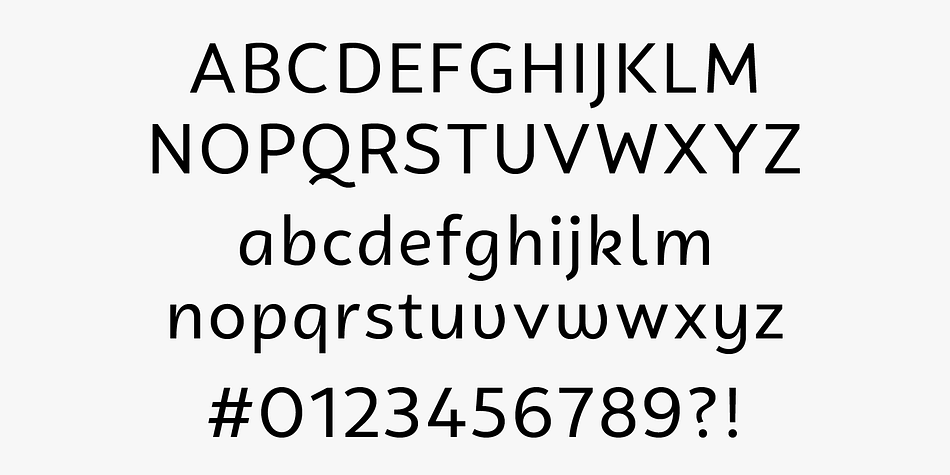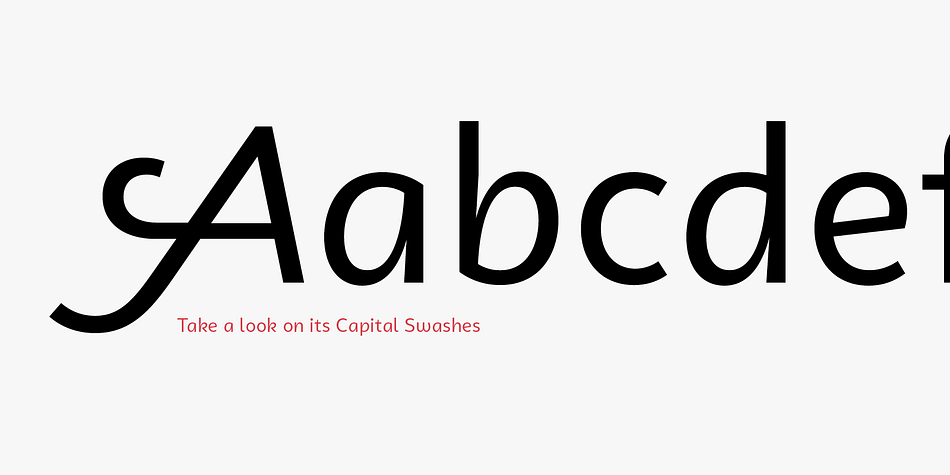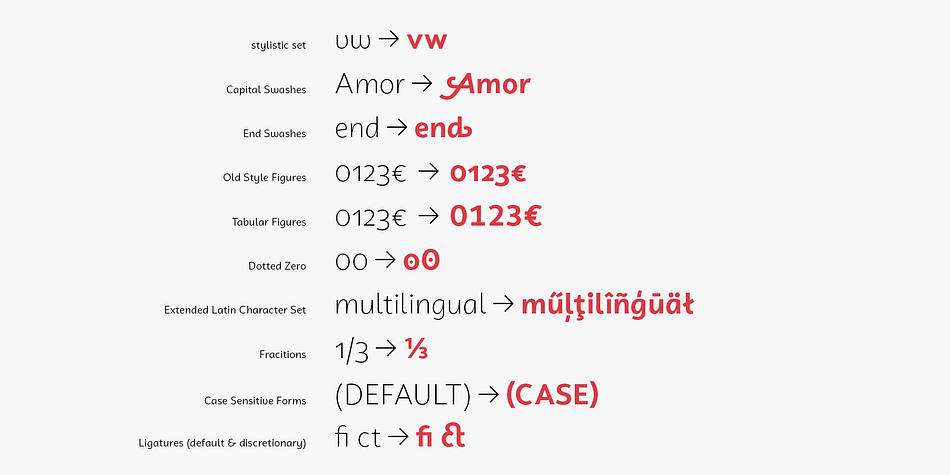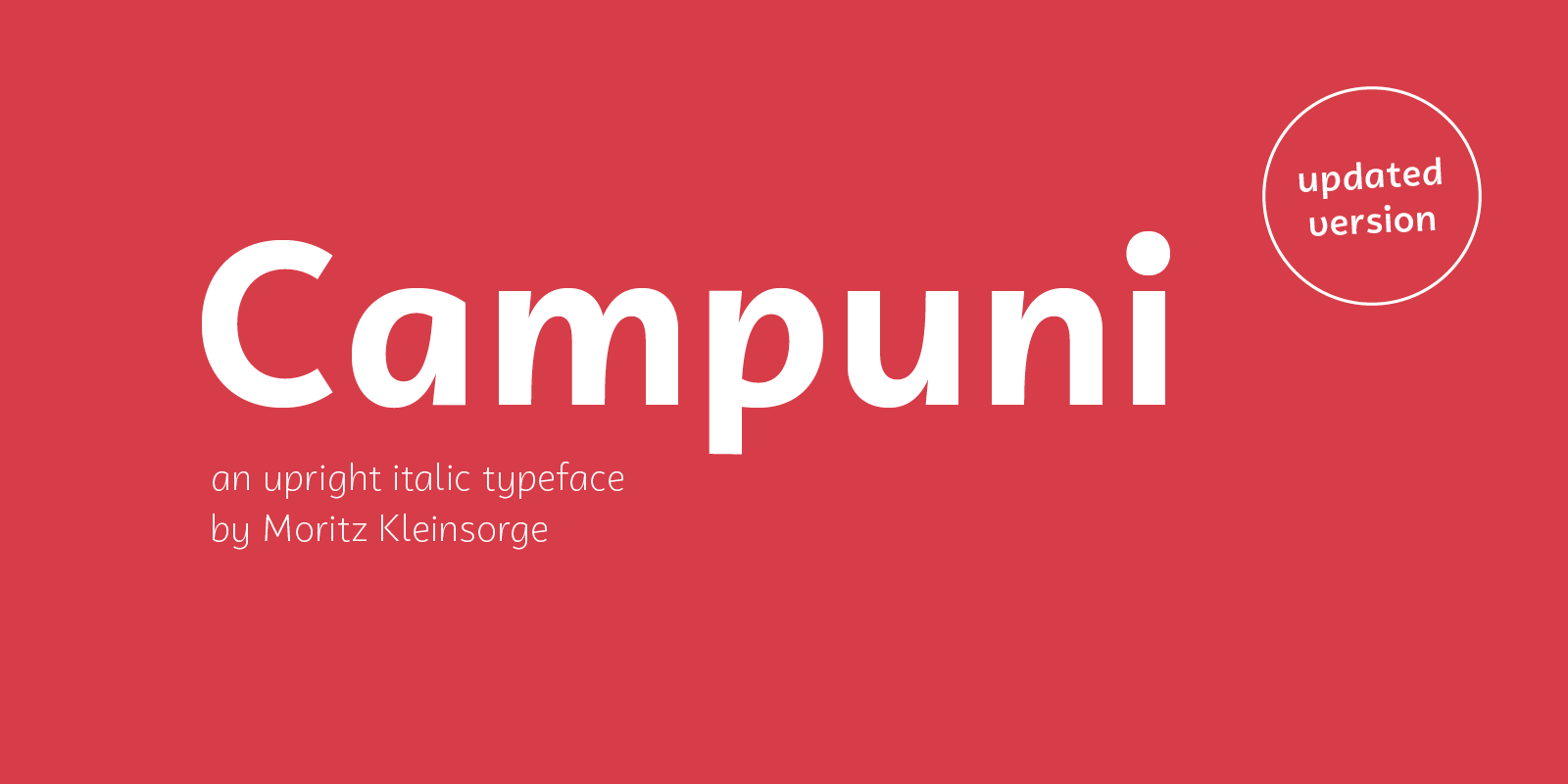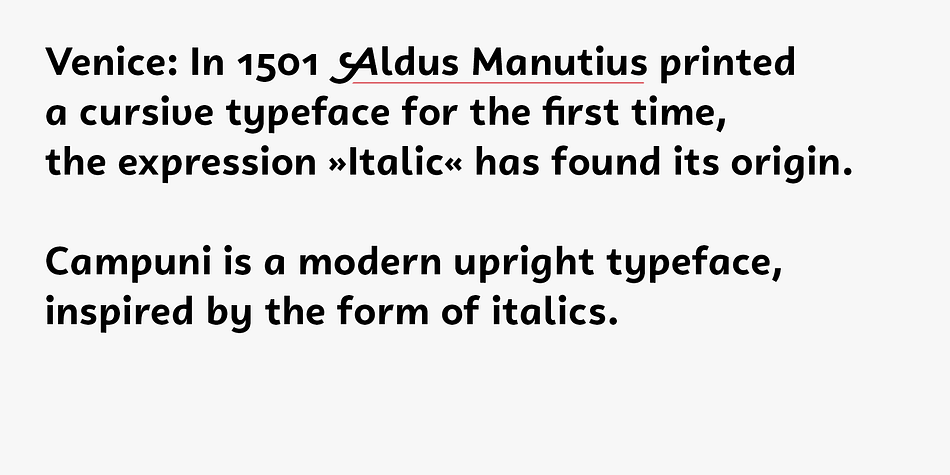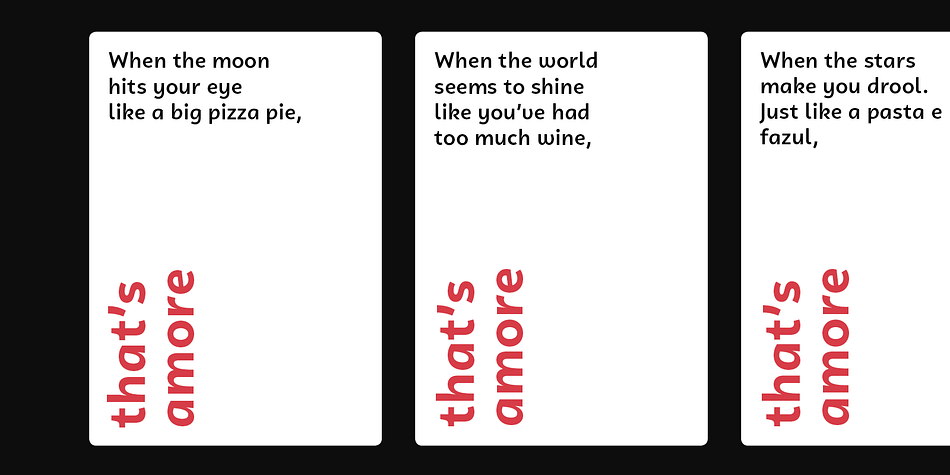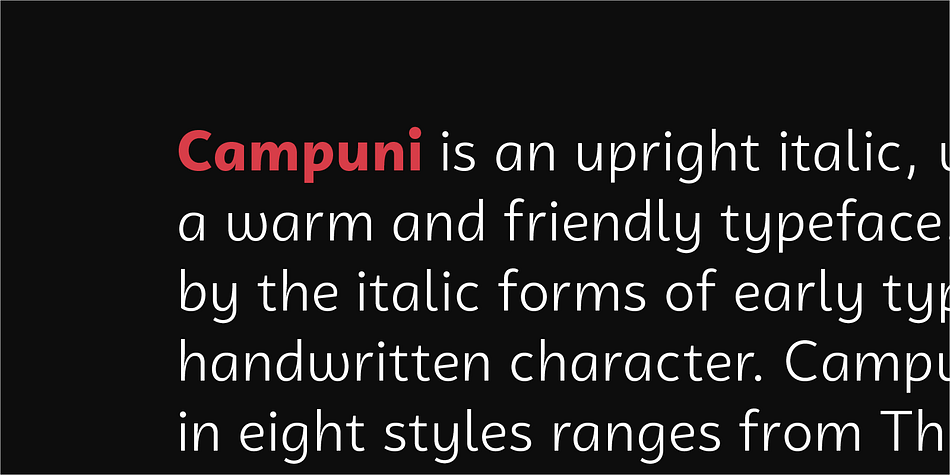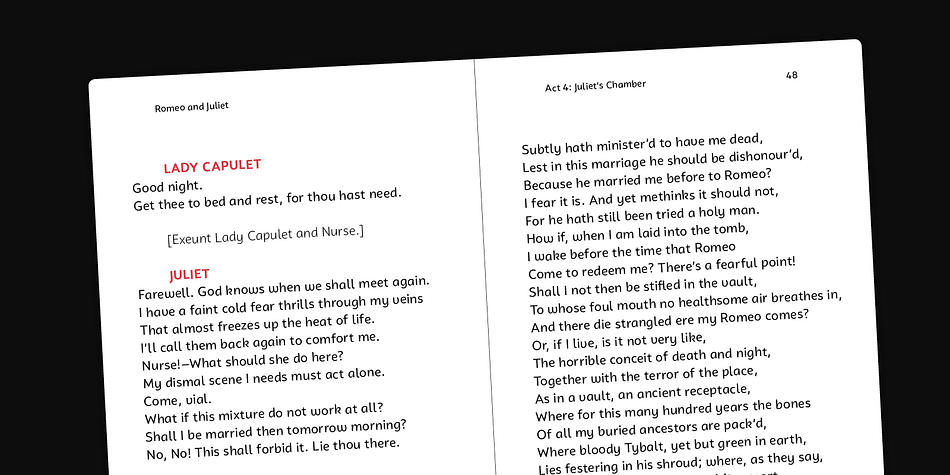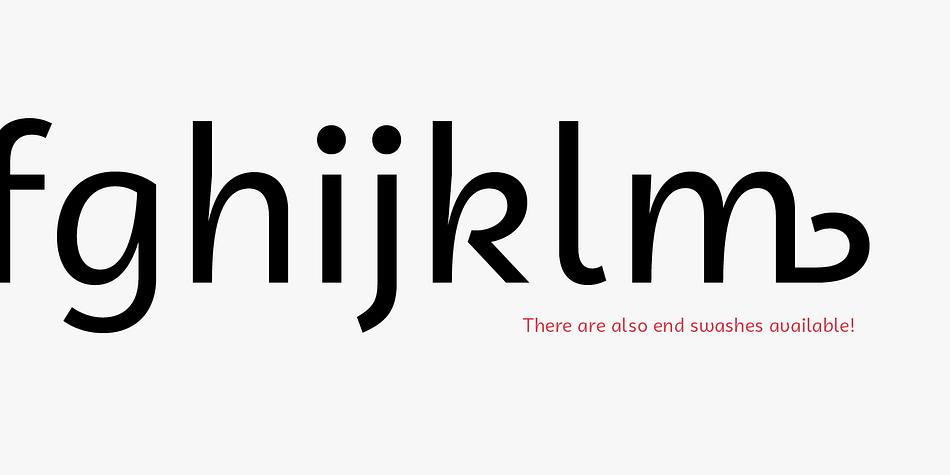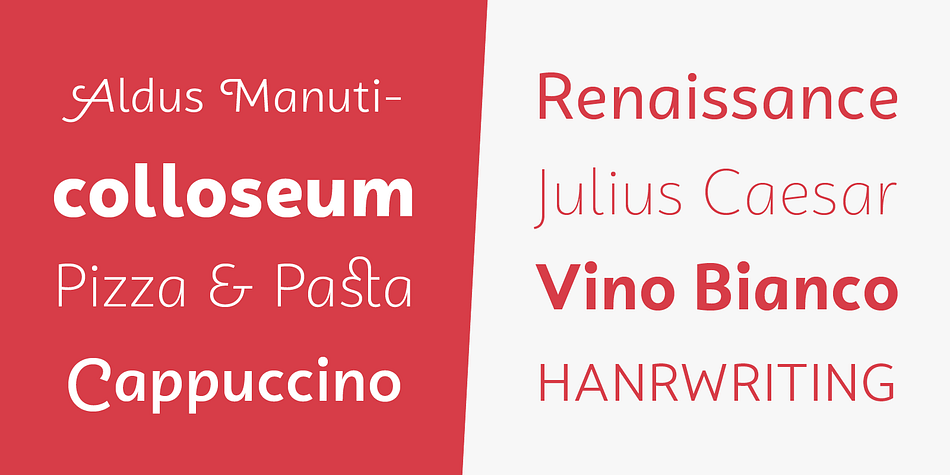
Designed by Moritz Kleinsorge, Campuni is a sans serif font family. This typeface has eight styles and was published by Moritz Kleinsorge.
Campuni is a sans-serif typeface that can be described as an “upright italic”: its letters are modeled on the handwritten forms of italics—but without the slant. This gives Campuni a contemporary, charming, and trustworthy character.
As with most modern sans-serif typefaces, Campuni’s design is based on low-contrast, almost monolinear strokes with a neat and clear appearance. This is where Campuni’s steep and tapered joints come in: with a bit of contrast, they provide the perfect foundation for a steady rhythm between characters—just like you’d find in meticulous handwriting. Careful spacing ensures that this rhythmic character is preserved on the page and on screen, making for a pleasant reading experience.
It’s not just the letterforms that gain from Campuni’s calligraphic heritage, though. This typeface is packed with calligraphy-style swash capitals and end swashes on lowercase letters, as well as discretionary ligatures. These are available via OpenType, allowing you to spice up your logo or headline with a hint of calligraphy in a breeze. Despite its flawless legibility in body text, Campuni is definitely eye-catching in display sizes. (Decrease letterspacing for some additional punch.)
Besides logo design, Campuni is a great choice for branding, advertising, packaging, corporate design, or even signage and wayfinding. The range of topics that Campuni excels in varies from food, leisure, retail, e-commerce, music, and travel to games, toys, childcare, and family-themed events.
Campuni has got an Extended Latin character set, seven sets of figures, case-sensitive forms, arrows, and a few other advanced typographic features—622 glyphs in total. Its eight weights span from Thin to Black.